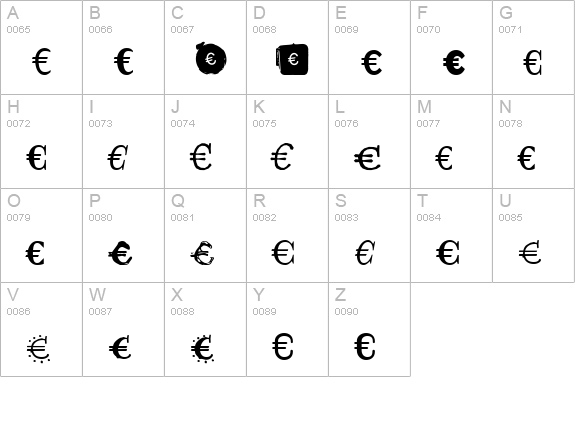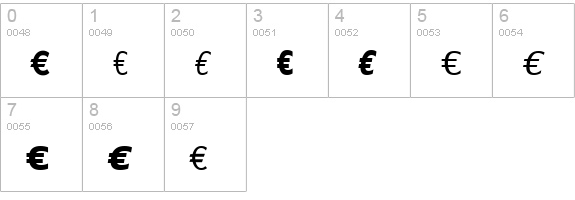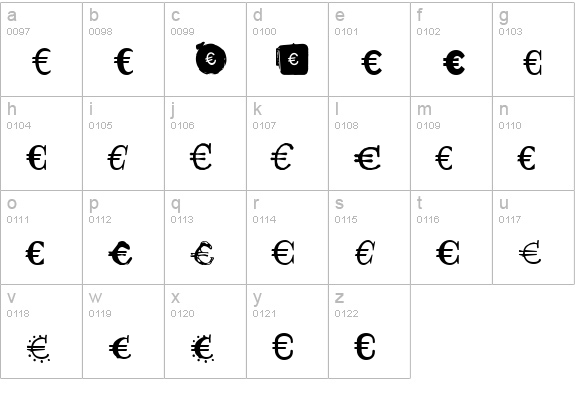
EmigreEuro Font Details
EmigreEuro font is a modern and stylish typeface that exudes sophistication and elegance. Its sleek lines and geometric shapes make it perfect for a wide range of design projects, from branding to editorial layouts. The clean and minimalistic design of EmigreEuro font gives a contemporary touch to any text, making it stand out with its unique character. What makes EmigreEuro font even more appealing is the fact that it is available for free download at FontsMarket.com. This means that you can easily access this beautiful font without any cost, allowing you to enhance your design projects without breaking the bank. Whether you're working on a website, poster, or logo, EmigreEuro font is a versatile choice that will add a touch of sophistication to your creations. Download EmigreEuro font today from FontsMarket.com and elevate your design projects with this elegant and stylish typeface that is both modern and timeless.